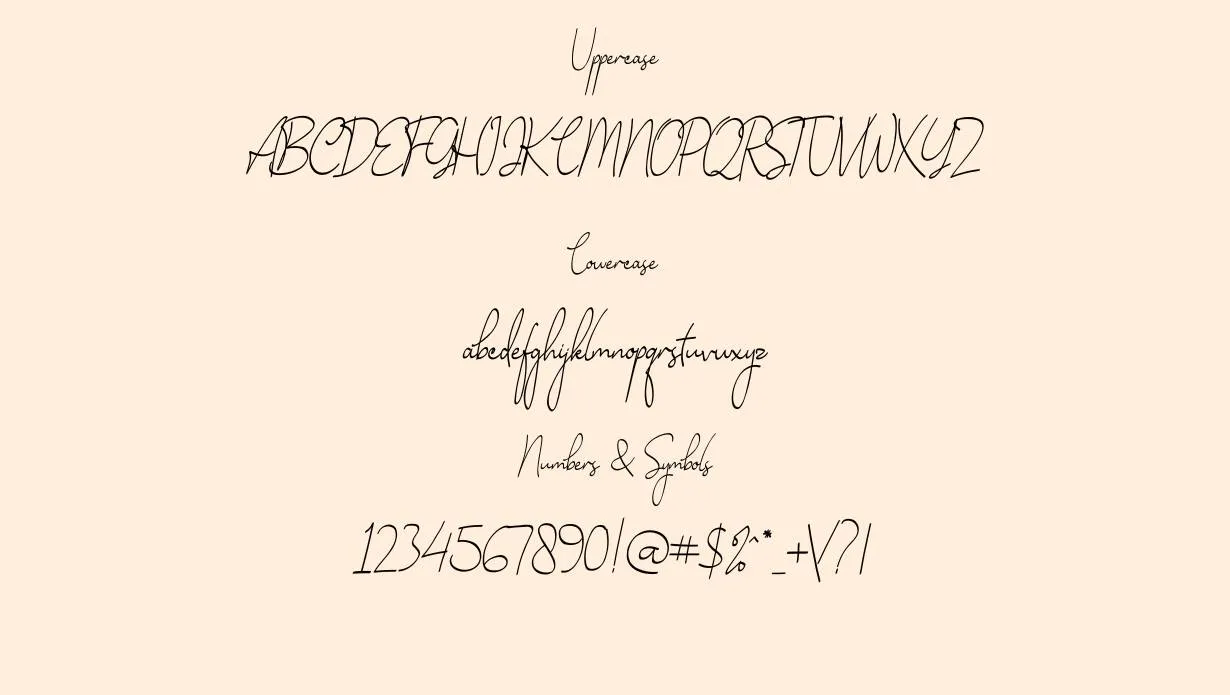
Chantique Font is an elegant and graceful typeface that exudes sophistication and charm. With its delicate curves and refined details, this font adds a timeless and luxurious quality to your text. Chantique Font is perfect for projects that demand a touch of class, such as invitations, branding, or editorial design.
Its understated beauty and classic aesthetic make it a versatile choice for conveying a sense of elegance and refinement in various creative endeavors, ensuring that your designs leave a lasting impression with a touch of timeless grace.